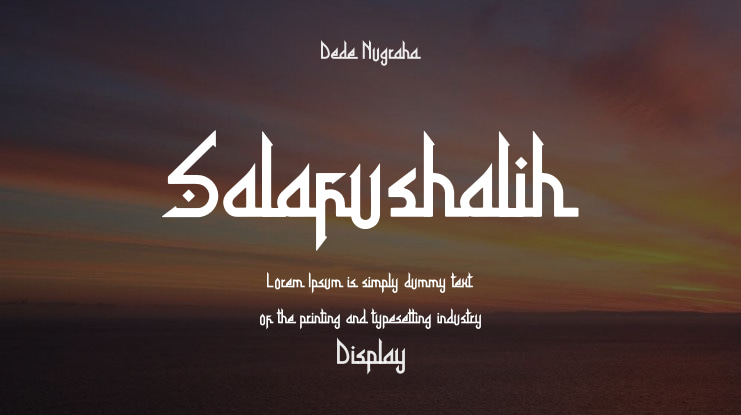
Salafushalih | Modern Arabic Font product packaging, mugs, quotes, posters, shopping bags, t-shirts, book covers, name card, invitation cards, greeting cards, label, photography, watermark, special events, and all your other lovely projects that need a Modern Arabic Font taste.